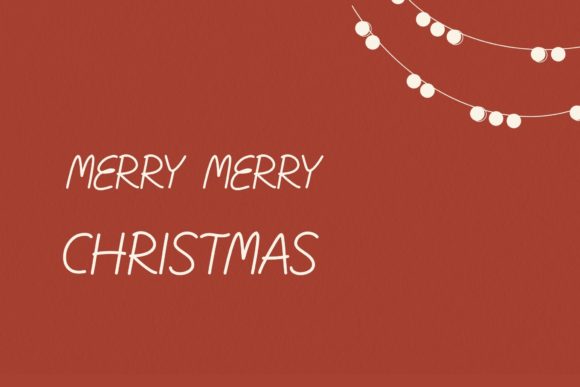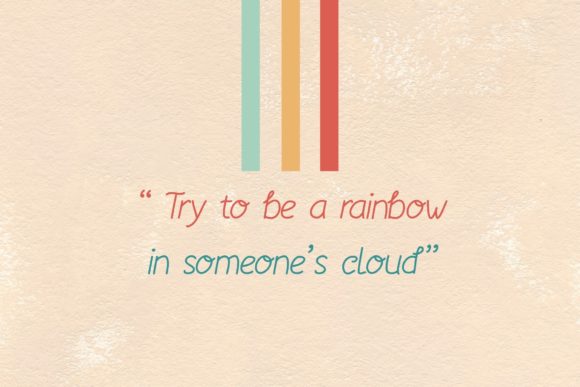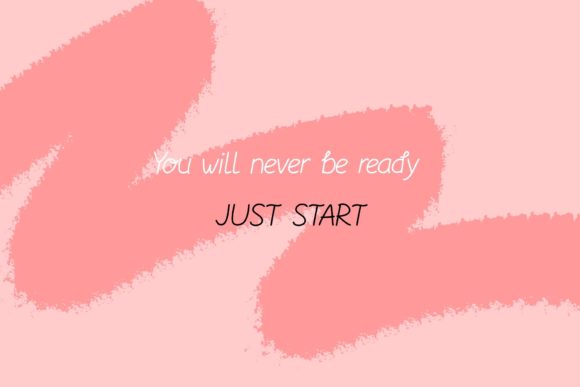
Introducing Abigail Font: The Perfect Handwritten Font for Creative Projects
Are you looking for a font that can add a touch of warmth and personality to your creative projects? Look no further than Abigail Font, a beautiful handwritten font that is perfect for designers and crafters who want to create natural and authentic designs. In this article, we’ll take a closer look at Abigail Font and explore its features, uses, and benefits.
What is Abigail Font?
Abigail Font is a cute and dainty handwritten font that is designed to bring a touch of elegance and sophistication to your designs. With its delicate and flowing lines, Abigail Font is perfect for creative projects that need a natural and authentic feel. Whether you’re working on a logo, invitation, greeting card, storybook, or children’s design, Abigail Font is the perfect choice.
Features of Abigail Font
Abigail Font has several features that make it stand out from other fonts. Some of its key features include:
- Handwritten style: Abigail Font has a beautiful handwritten style that gives it a personal and authentic feel.
- Delicate lines: The font features delicate lines that are perfect for creating elegant and sophisticated designs.
- Natural feel: Abigail Font has a natural feel that makes it perfect for designs that require a touch of warmth and personality.
- Versatile: The font is versatile and can be used for a wide range of creative projects, from logos and invitations to storybooks and children’s designs.
Uses of Abigail Font
Abigail Font is perfect for a wide range of creative projects, including:
- Logos: Abigail Font is perfect for creating logos that require a touch of elegance and sophistication.
- Invitations: The font is great for creating invitations for weddings, parties, and other special events.
- Greeting cards: Abigail Font is perfect for creating greeting cards for special occasions, such as birthdays, holidays, and anniversaries.
- Storybooks: The font is great for creating storybooks for children, with its delicate lines and natural feel.
- Children’s designs: Abigail Font is perfect for creating children’s designs, such as coloring books, activity sheets, and educational materials.
- Stationery: The font is great for creating stationery, such as notebooks, journals, and letterheads.
Benefits of Using Abigail Font
There are several benefits to using Abigail Font for your creative projects. Some of the benefits include:
- Unique and authentic look: Abigail Font gives your designs a unique and authentic look that sets them apart from others.
- Elegant and sophisticated: The font adds an elegant and sophisticated touch to your designs, making them perfect for special occasions and events.
- Easy to read: Abigail Font is easy to read, making it perfect for designs that require a clear and legible font.
- Versatile: The font is versatile and can be used for a wide range of creative projects.
Tips for Using Abigail Font
Here are some tips for using Abigail Font effectively in your designs:
- Use it for headings and titles: Abigail Font is perfect for headings and titles, where its elegant and sophisticated style can shine.
- Pair it with other fonts: The font can be paired with other fonts to create a unique and interesting look.
- Experiment with colors: Abigail Font looks great in a variety of colors, so don’t be afraid to experiment and find the perfect color for your design.
- Use it for digital and print designs: The font can be used for both digital and print designs, making it perfect for a wide range of creative projects.
Abigail Font is a beautiful handwritten font that is perfect for creative projects that need a natural and authentic feel. With its delicate lines, elegant style, and versatile uses, Abigail Font is a great choice for designers and crafters who want to create unique and sophisticated designs. Whether you’re working on a logo, invitation, greeting card, storybook, or children’s design, Abigail Font is the perfect font for your project.